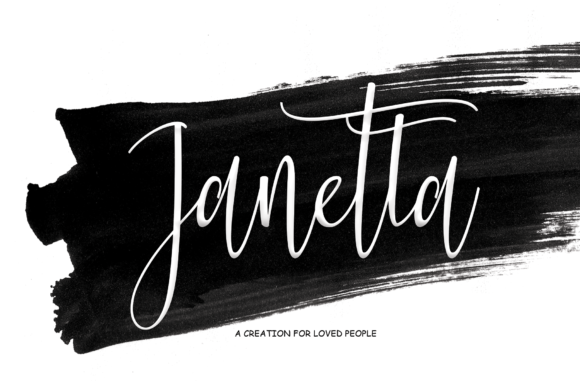
About Janetta Font
Janetta is a beautiful and relaxed script font. It has a classy, elegant and modern look that can be used for logos, branding, invitations, stationery, wedding designs, social media posts, and much more! This font is PUA encoded which means you can access all of the glyphs and swashes with ease!